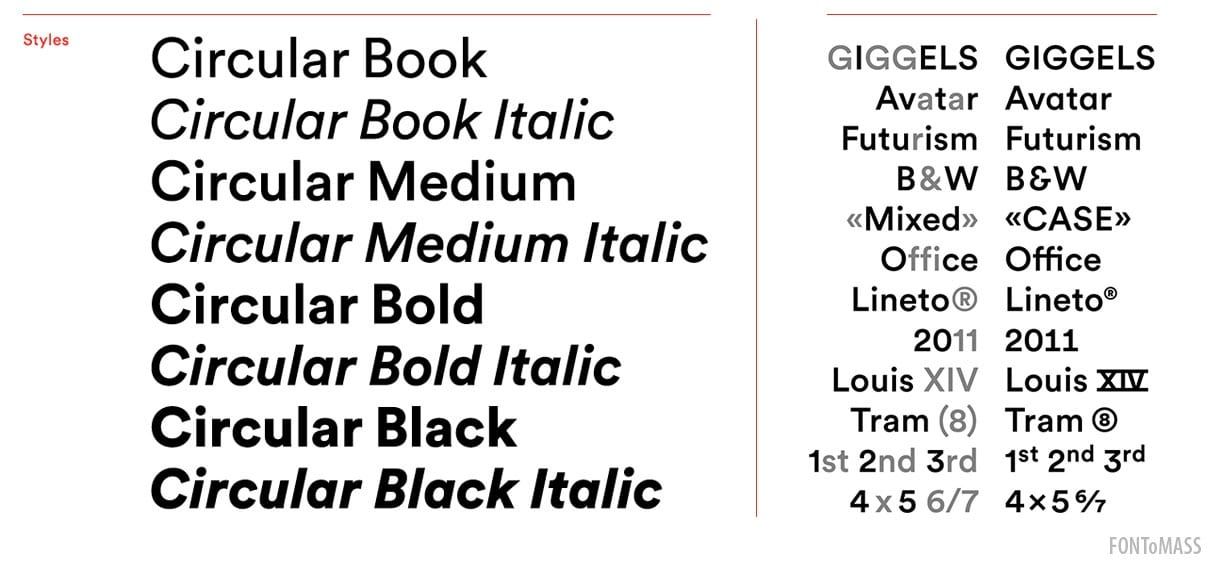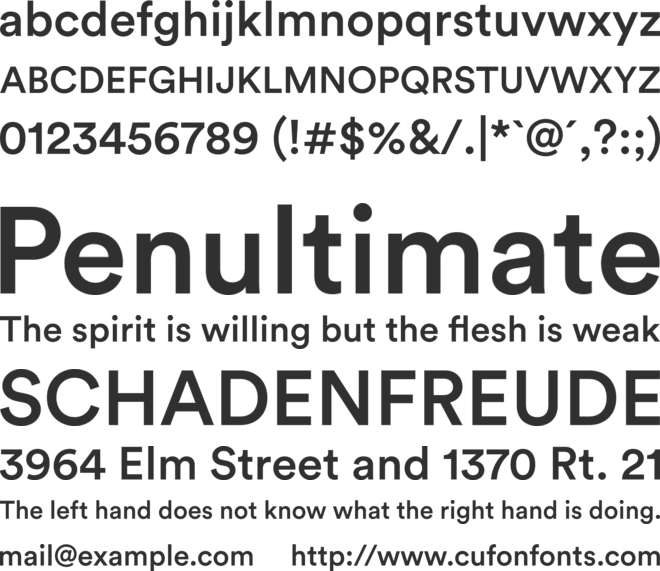
Circular Std Font
Circular Std Font - Circular std sans serif font. Design amazing projects with circular std medium typeface, learn about the full character set of circular std medium, try online font to see. It’s a humanist sans serif font created by lineto with geometric and organic forms. Circular std is a original humanist sans serif typeface from lineto which combines geometric and organic shapes into its forms.
Circular std is a original humanist sans serif typeface from lineto which combines geometric and organic shapes into its forms. Design amazing projects with circular std medium typeface, learn about the full character set of circular std medium, try online font to see. Circular std sans serif font. It’s a humanist sans serif font created by lineto with geometric and organic forms.
Circular std sans serif font. Circular std is a original humanist sans serif typeface from lineto which combines geometric and organic shapes into its forms. Design amazing projects with circular std medium typeface, learn about the full character set of circular std medium, try online font to see. It’s a humanist sans serif font created by lineto with geometric and organic forms.
Design amazing projects with circular std medium typeface, learn about the full character set of circular std medium, try online font to see. Circular std is a original humanist sans serif typeface from lineto which combines geometric and organic shapes into its forms. Circular std sans serif font. It’s a humanist sans serif font created by lineto with geometric and.
Design amazing projects with circular std medium typeface, learn about the full character set of circular std medium, try online font to see. It’s a humanist sans serif font created by lineto with geometric and organic forms. Circular std sans serif font. Circular std is a original humanist sans serif typeface from lineto which combines geometric and organic shapes into.
Circular std is a original humanist sans serif typeface from lineto which combines geometric and organic shapes into its forms. It’s a humanist sans serif font created by lineto with geometric and organic forms. Design amazing projects with circular std medium typeface, learn about the full character set of circular std medium, try online font to see. Circular std sans.
It’s a humanist sans serif font created by lineto with geometric and organic forms. Circular std is a original humanist sans serif typeface from lineto which combines geometric and organic shapes into its forms. Design amazing projects with circular std medium typeface, learn about the full character set of circular std medium, try online font to see. Circular std sans.
Circular std sans serif font. It’s a humanist sans serif font created by lineto with geometric and organic forms. Design amazing projects with circular std medium typeface, learn about the full character set of circular std medium, try online font to see. Circular std is a original humanist sans serif typeface from lineto which combines geometric and organic shapes into.
It’s a humanist sans serif font created by lineto with geometric and organic forms. Design amazing projects with circular std medium typeface, learn about the full character set of circular std medium, try online font to see. Circular std is a original humanist sans serif typeface from lineto which combines geometric and organic shapes into its forms. Circular std sans.
It’s a humanist sans serif font created by lineto with geometric and organic forms. Circular std is a original humanist sans serif typeface from lineto which combines geometric and organic shapes into its forms. Design amazing projects with circular std medium typeface, learn about the full character set of circular std medium, try online font to see. Circular std sans.
Circular std is a original humanist sans serif typeface from lineto which combines geometric and organic shapes into its forms. Design amazing projects with circular std medium typeface, learn about the full character set of circular std medium, try online font to see. It’s a humanist sans serif font created by lineto with geometric and organic forms. Circular std sans.
Design amazing projects with circular std medium typeface, learn about the full character set of circular std medium, try online font to see. Circular std sans serif font. It’s a humanist sans serif font created by lineto with geometric and organic forms. Circular std is a original humanist sans serif typeface from lineto which combines geometric and organic shapes into.
Circular std is a original humanist sans serif typeface from lineto which combines geometric and organic shapes into its forms. Design amazing projects with circular std medium typeface, learn about the full character set of circular std medium, try online font to see. It’s a humanist sans serif font created by lineto with geometric and organic forms. Circular std sans.
It’s A Humanist Sans Serif Font Created By Lineto With Geometric And Organic Forms.
Circular std is a original humanist sans serif typeface from lineto which combines geometric and organic shapes into its forms. Design amazing projects with circular std medium typeface, learn about the full character set of circular std medium, try online font to see. Circular std sans serif font.